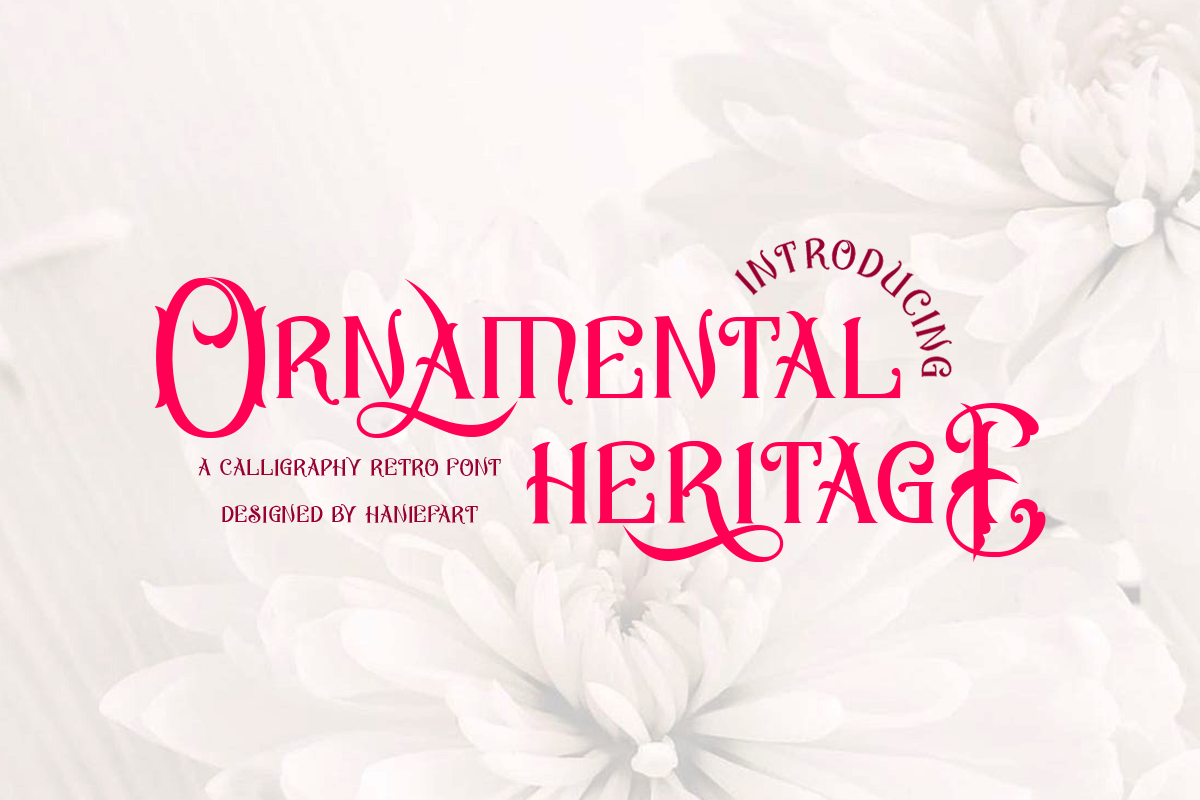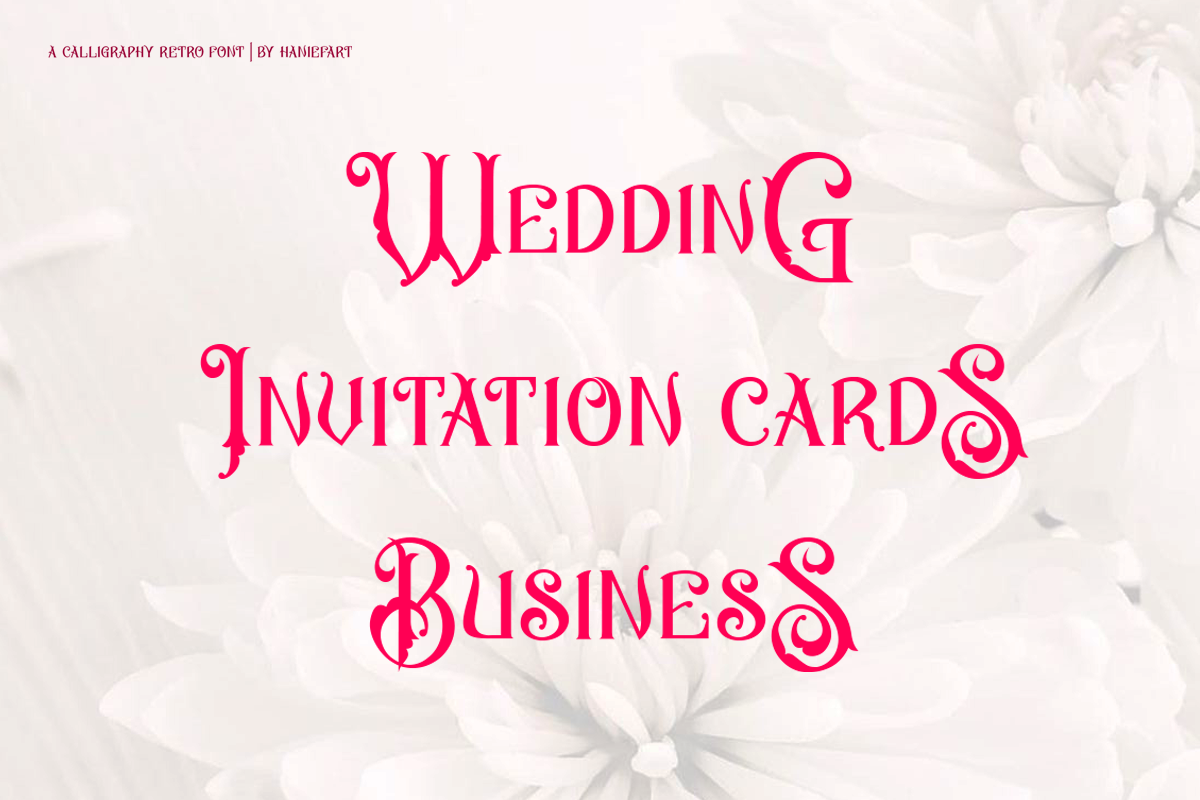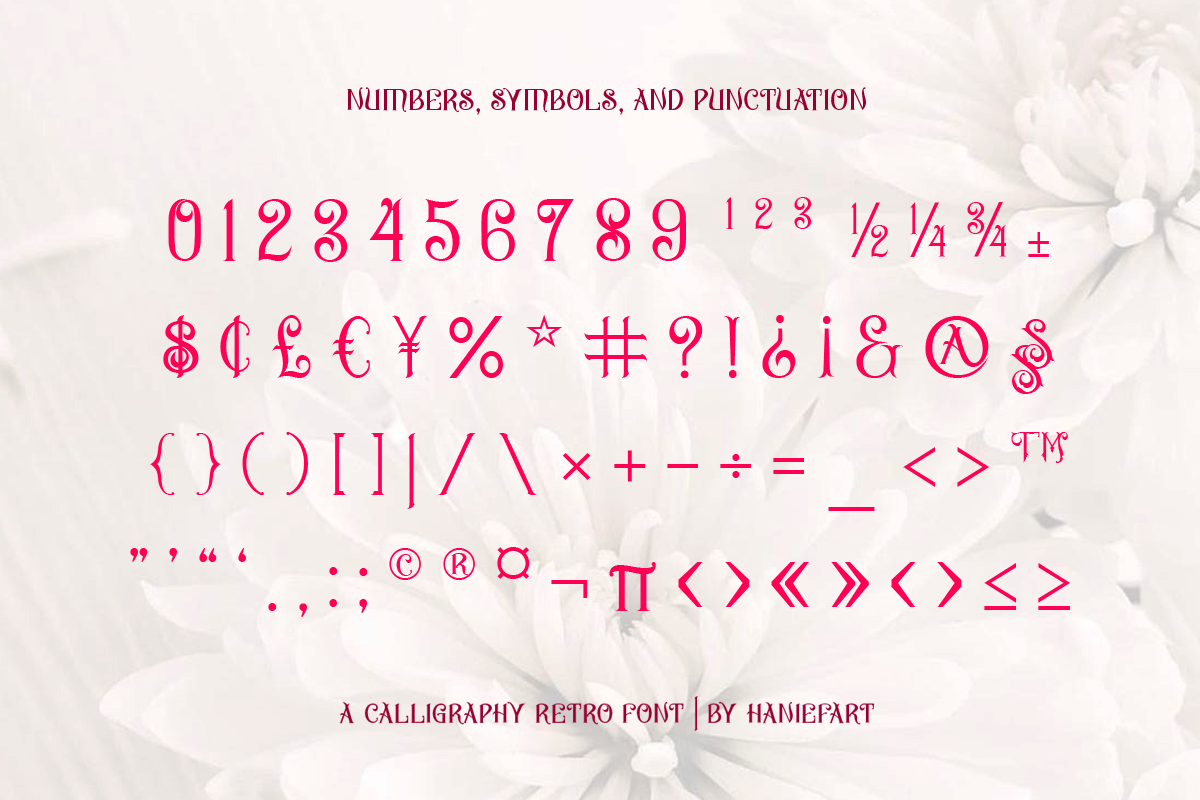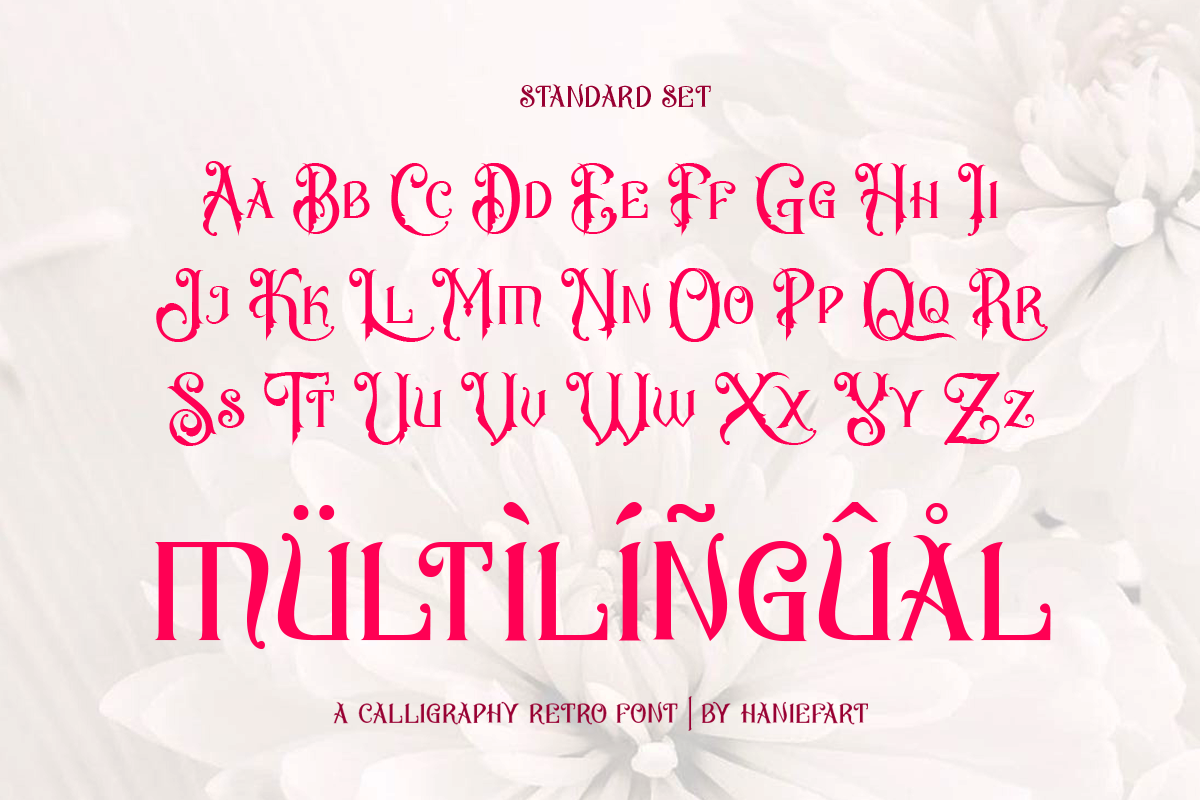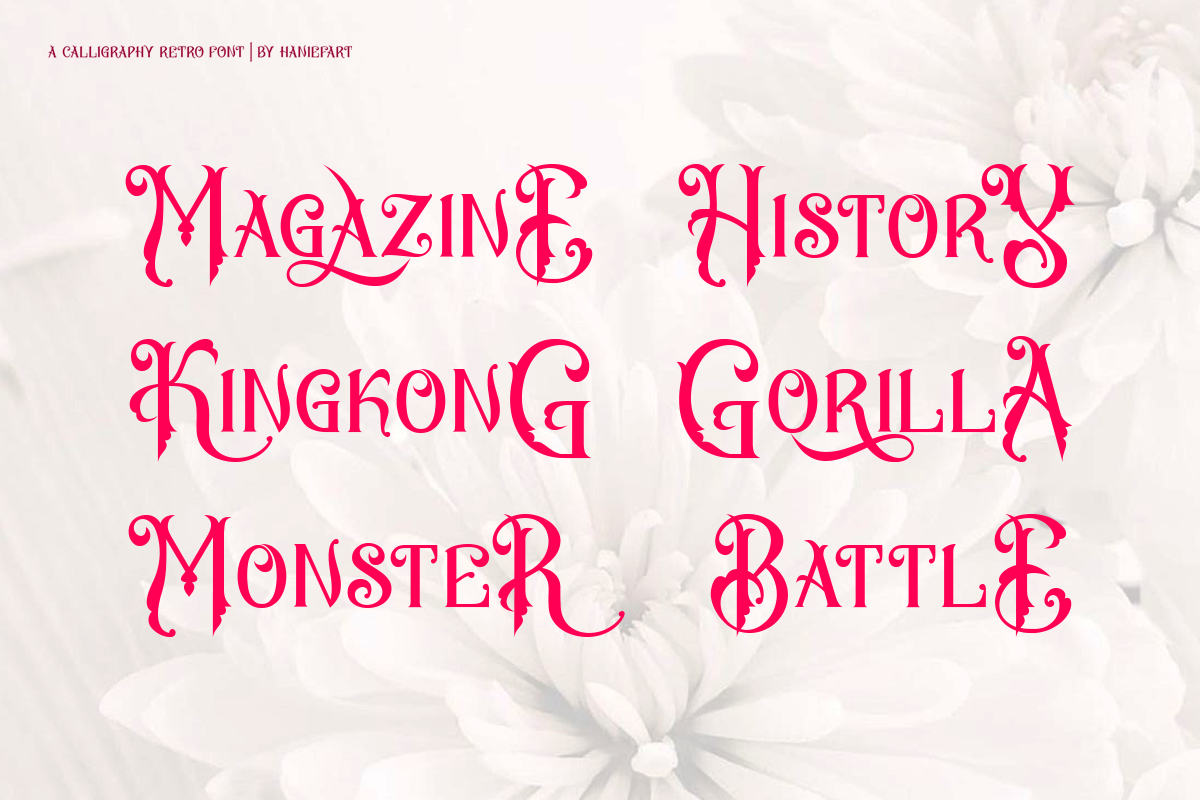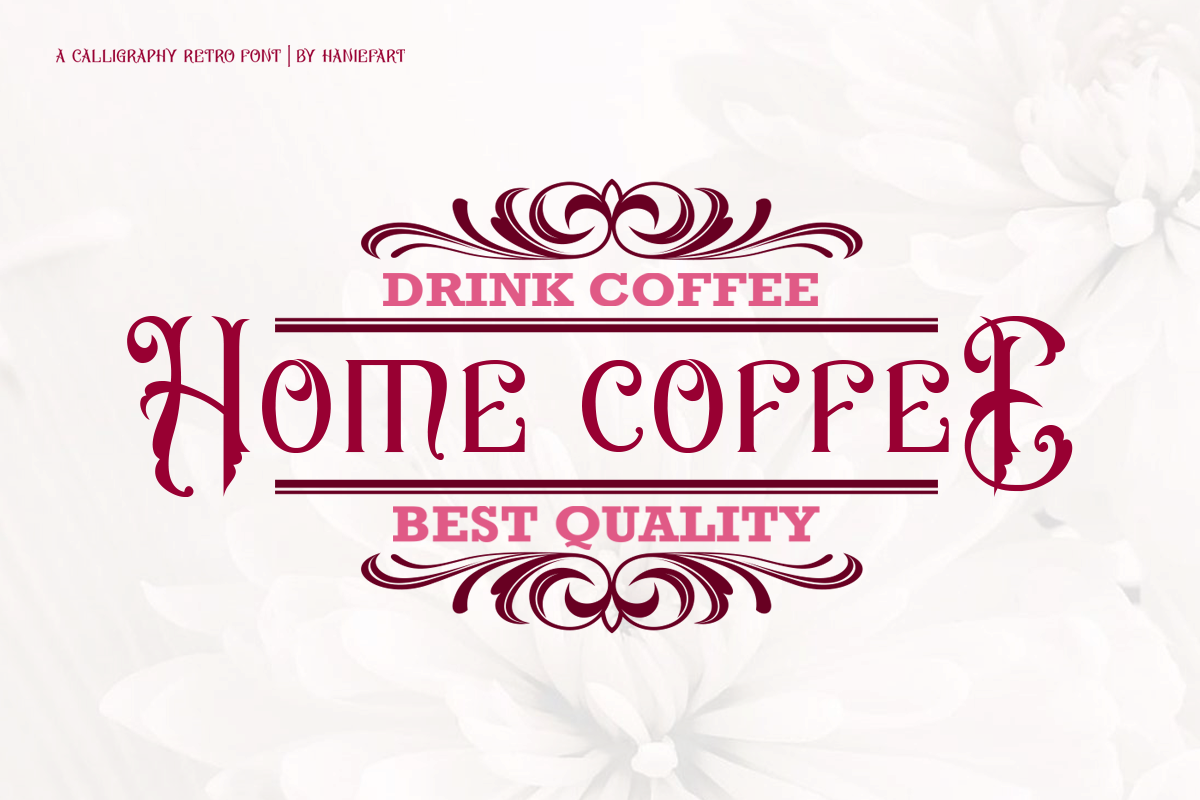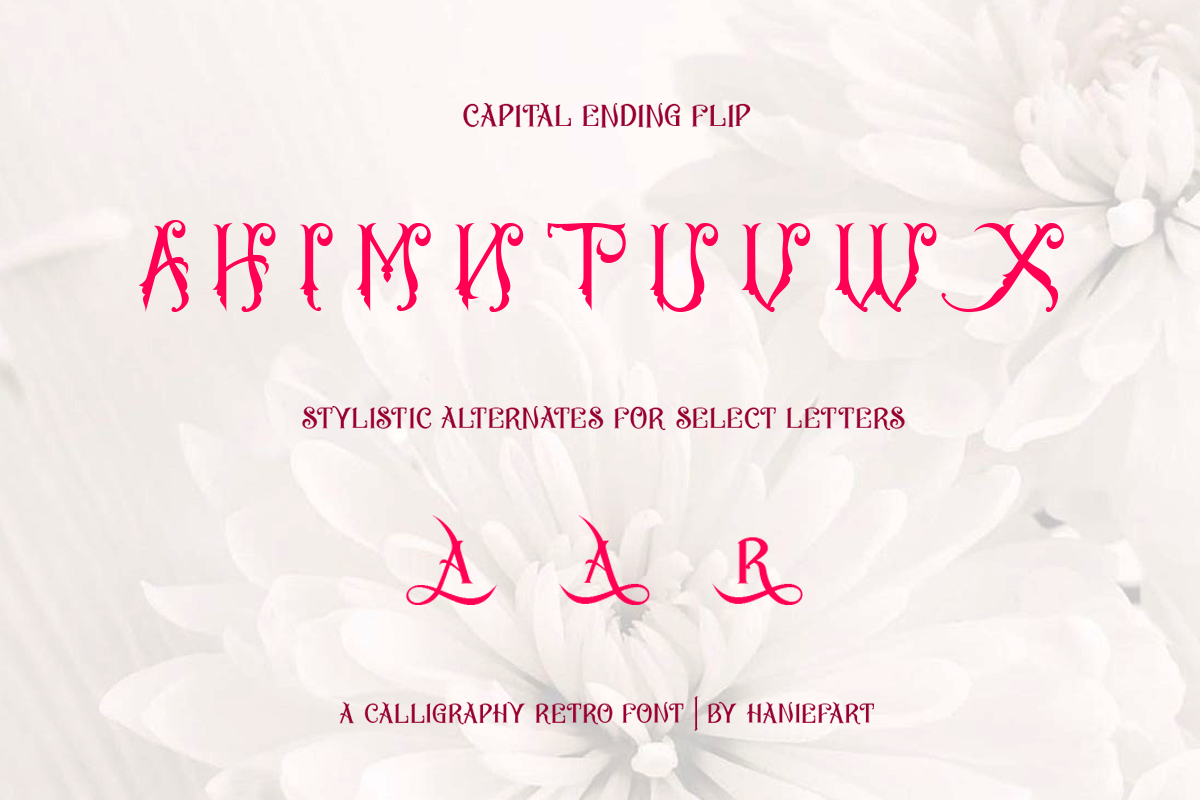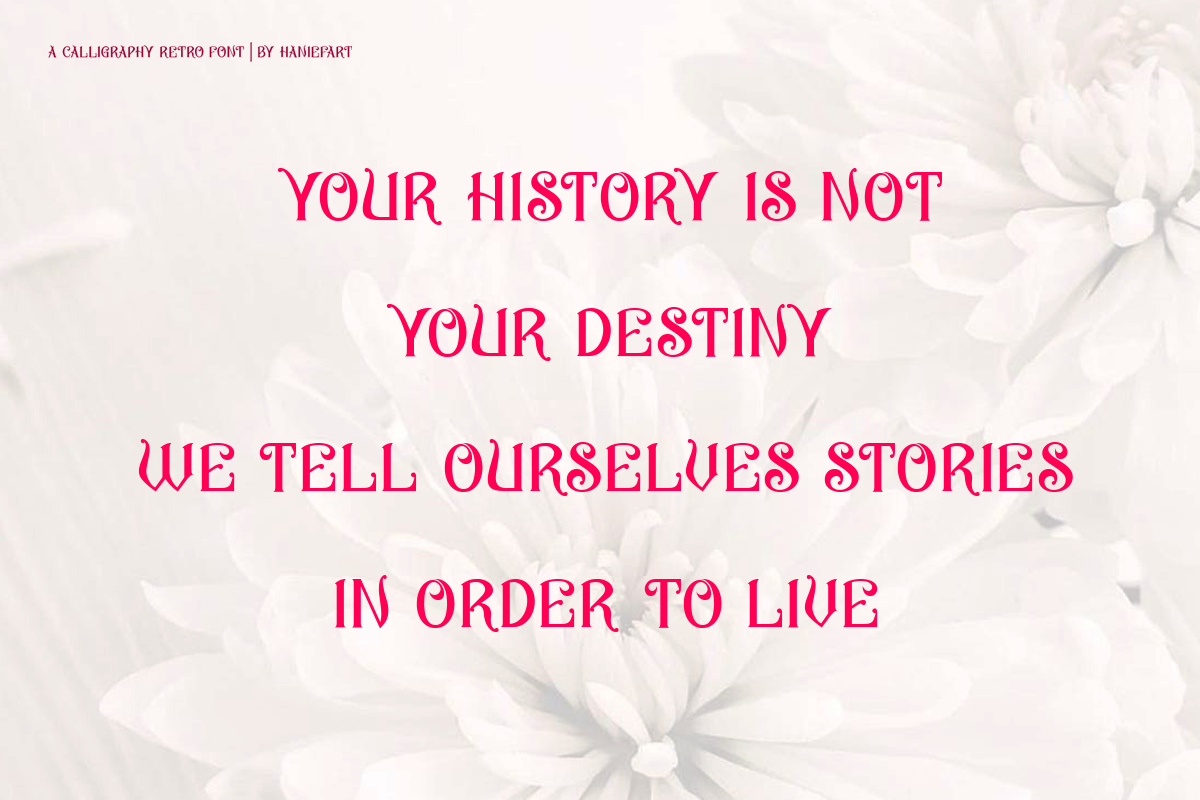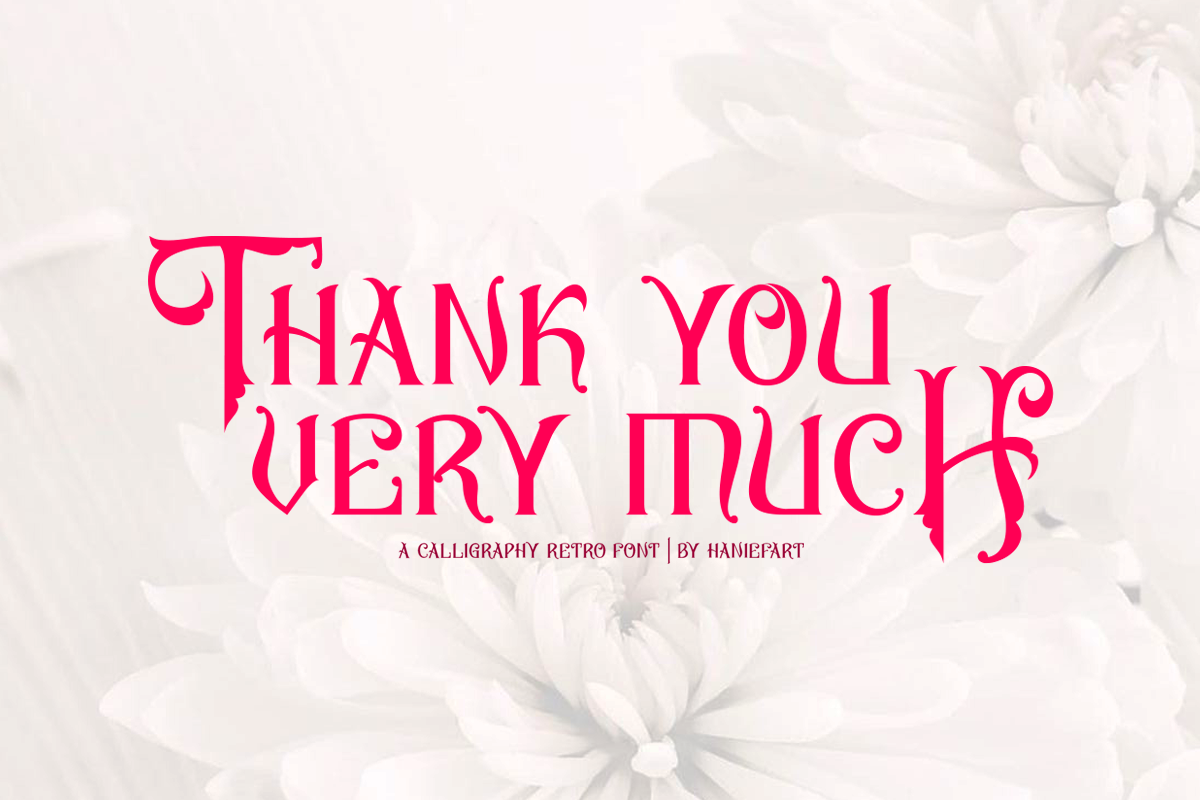
Ornamental Heritage - Retro Font
Ornamental Heritage is a captivating blend of Gothic-inspired elements and handwritten charm. Its intricate strokes and ornate details evoke a sense of history and elegance. Perfect for vintage-inspired designs, invitations, and branding projects, Ornamental Heritage brings a touch of old-world sophistication to any creative endeavor.